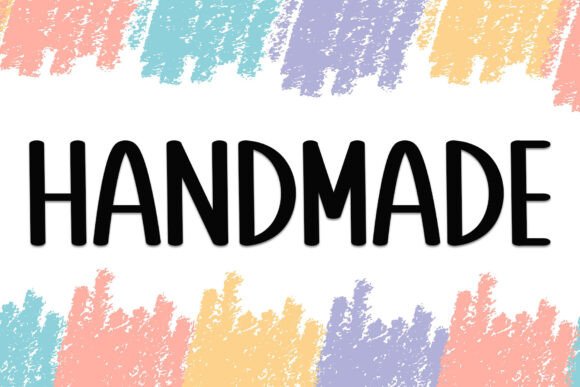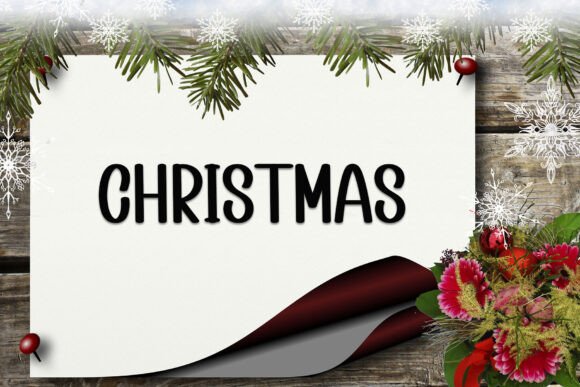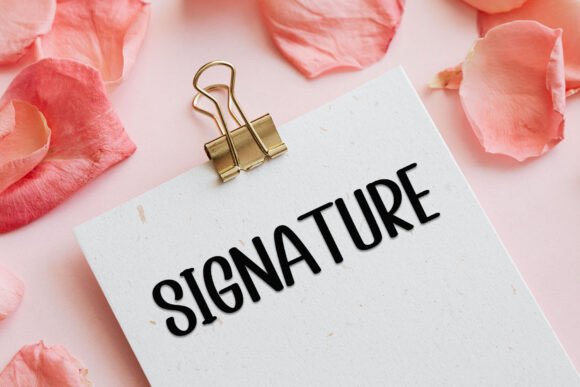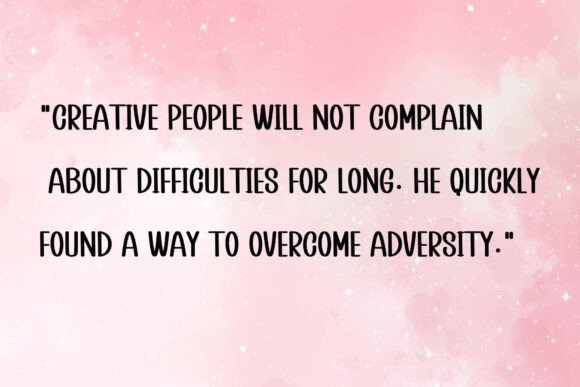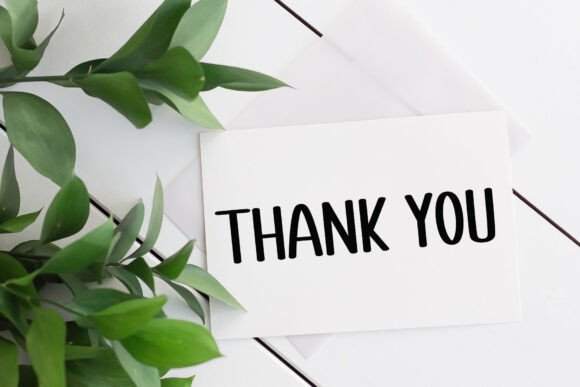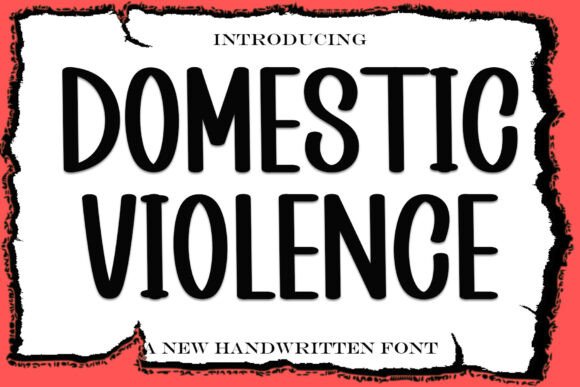
Introducing Domestic Violence Font: Elevate Your Designs with Elegance and Class
In the world of typography, fonts play a crucial role in conveying the tone and aesthetic of a design project. For designers and crafters seeking to add a touch of sophistication and elegance to their work, the Domestic Violence font is an excellent choice. This trendy handwritten font boasts a contemporary atmosphere and impeccable form, drawing inspiration from timeless classic calligraphy.
What is Domestic Violence Font?
Domestic Violence font is a carefully crafted typeface that embodies the perfect blend of modernity and classic charm. Its unique, handwritten style is characterized by flowing lines, subtle variations in line width, and a distinctive character that sets it apart from more traditional fonts. This font is designed to add a personal touch to any design project, making it ideal for a wide range of applications, from branding and advertising to packaging and digital media.
Key Features of Domestic Violence Font
- Trendy and Contemporary: Domestic Violence font features a modern, handwritten style that is sure to capture the attention of your audience.
- Inspired by Classic Calligraphy: The font’s design is rooted in timeless classic calligraphy, ensuring that it exudes elegance and sophistication.
- Impeccable Form: Each character in the font is meticulously crafted to ensure perfect legibility and aesthetic appeal.
- Versatile: Domestic Violence font can be used across various design projects, including logos, brochures, posters, and digital media.
Benefits of Using Domestic Violence Font
For designers and crafters, the Domestic Violence font offers numerous benefits, including:
- Elegance and Sophistication: The font’s classic, calligraphic inspiration adds a level of refinement to any design project.
- Uniqueness: The handwritten style of Domestic Violence font ensures that your designs stand out from the crowd.
- Readability: Despite its elegant nature, the font remains highly legible, making it suitable for both headings and body text.
- Time-Saving: With its versatile design, you can use Domestic Violence font across multiple projects, reducing the need to search for different fonts.
Domestic Violence font is a beautiful, trendy handwritten font that brings a touch of elegance and class to any design project. Its contemporary atmosphere and impeccable form make it an excellent choice for designers and crafters seeking to create sophisticated and eye-catching designs. With its versatility, readability, and timeless inspiration, Domestic Violence font is sure to become a staple in your typography collection.
Whether you’re working on a branding project, creating packaging, or designing digital media, Domestic Violence font is an excellent choice. Its unique blend of modernity and classic charm ensures that your designs will stand out, while its elegance and sophistication will leave a lasting impression on your audience.